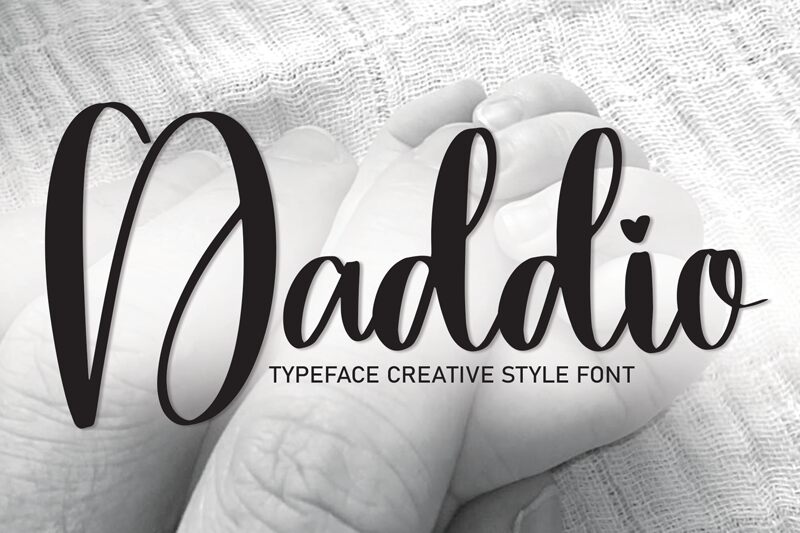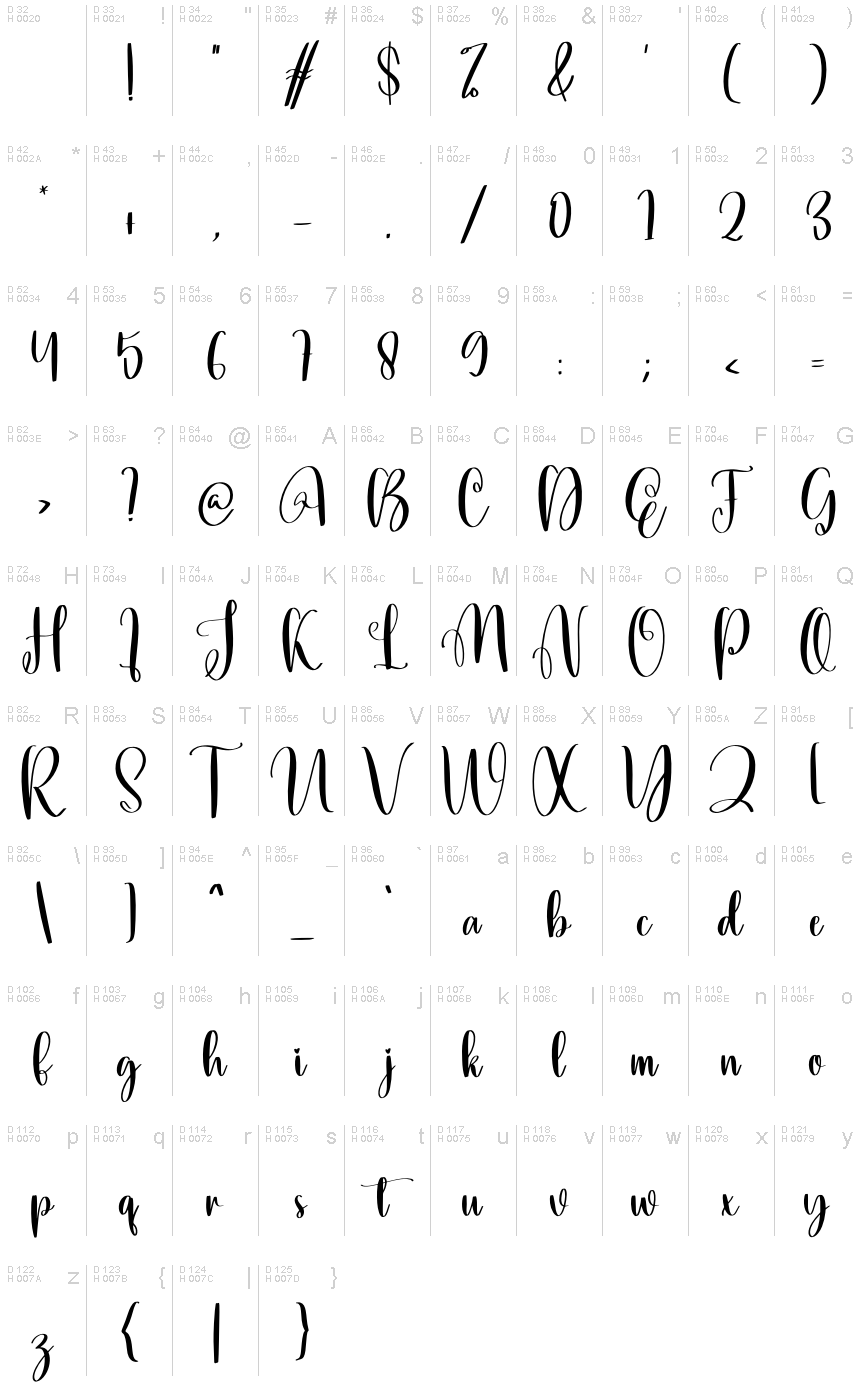
Daddio
Daddio font is a free handwritten font designed by Scratchones with flowing letters and light decorative elements. With an elegant design that feels playful and cursive, this informal font captures both attention and the imagination. It can be easily integrated into personal projects where users seek a touch of charisma or sophistication.
Ideal choices for Daddio include headlines, branding designs, badges, posters, cards, banners, ads, magazine covers, packaging designs, websites projects etc. Don’t shy away from using it for stationery items such as business cards or adding it to apparel items like invitation t-shirts.